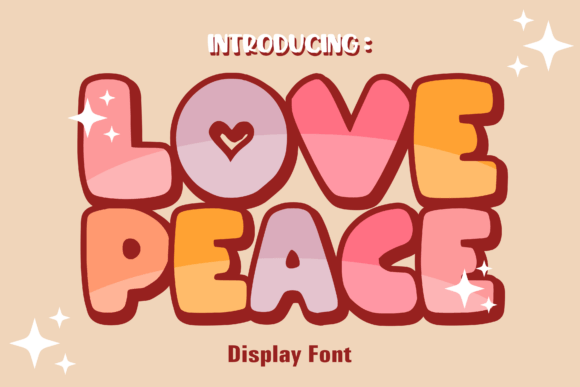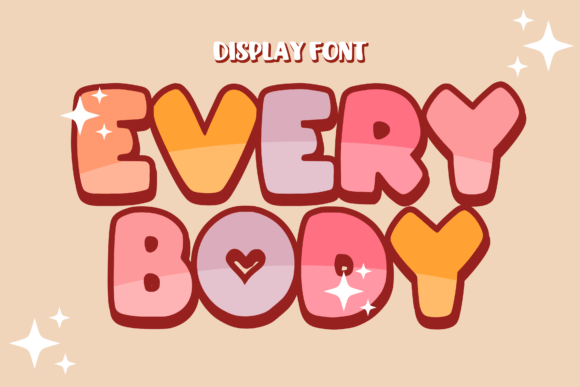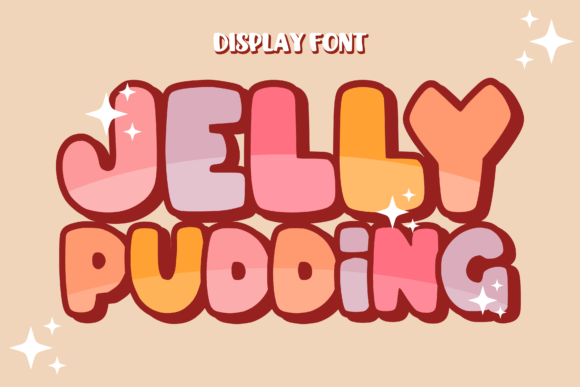
Love Peace Font: Groovy Retro Display Font for Playful Designs
About the Love Peace Font
The Love Peace Font offers a perfect balance of form and function for your design needs. Love Peace is a beautiful font that brings fun and imagination to your projects. With its retro style and look, this font offers hope for a variety of creative endeavors. Let this font add a pop of color and aesthetic elements to your designs, suitable for everything from posters, stickers, t-shirts, comics, books, movies, product labels, children’s designs, and more.
Love Peace excels in display applications such as posters, logos, and headlines where its retro charm and playful energy shine. Its whimsical forms work particularly well for projects targeting younger audiences or those with a vintage aesthetic. However, its low x-height and decorative elements make it unsuitable for extended body text or UI elements requiring high readability.
Pairing Love Peace with a clean sans-serif like Helvetica Neue for body text creates a strong contrast and visual hierarchy. For a more playful feel, consider pairing it with a rounded geometric sans-serif such as Futura. A simple serif like Garamond can add a touch of sophistication, grounding the font’s retro style.
The Love Peace font projects a bold, friendly, and nostalgic personality, ideal for brands that want to communicate optimism and a sense of fun. Avoid using it for projects requiring seriousness or formality.
Love Peace Font Usage Examples
Love Peace Font Example